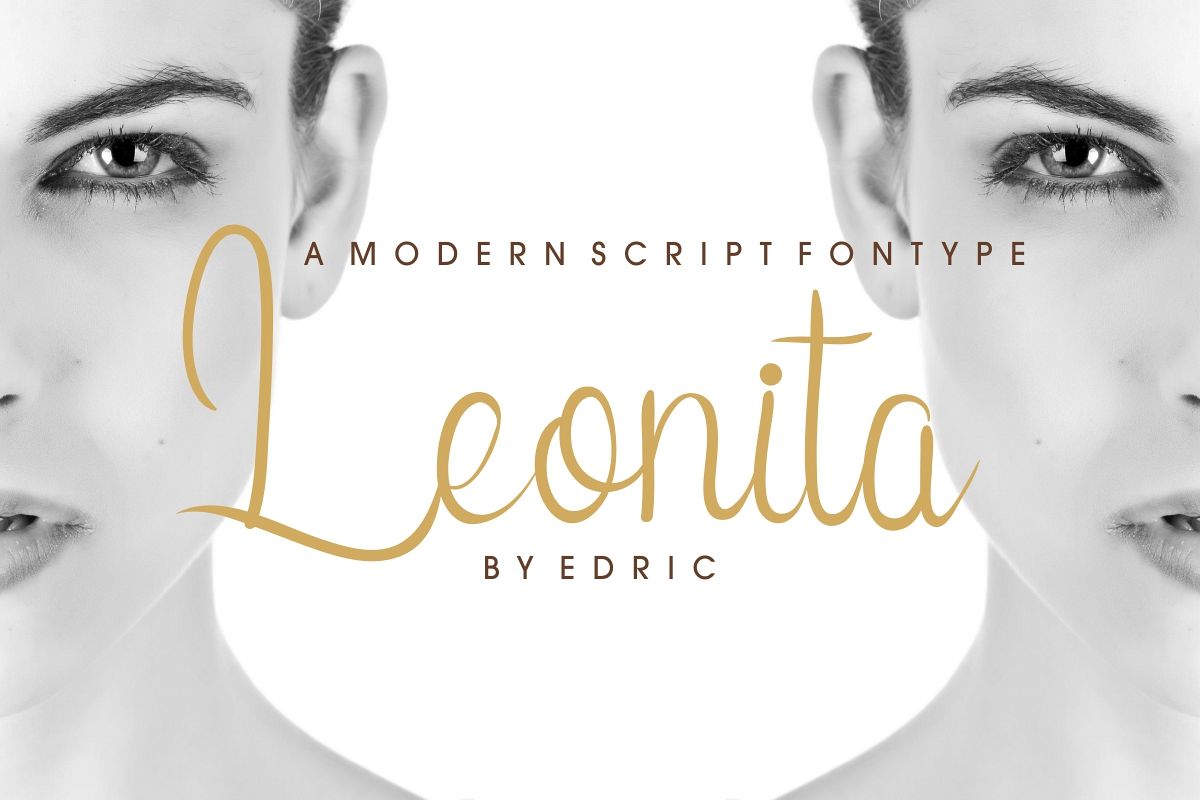
Leonita
Leonita  !A modern calligraphy Script Font!Leonita  is a new calligraphy script font with beautiful characters. It has a natural, elegant, and stylish style. It comes with two style choices : Regular and Italic. It also support multiple accentsPerfect for many industries and projects : Wedding, professional, person name, signature, modern, law firm, makeup artist, photography, travel, hotel, fashion, cafe, cake-food etcThis font will Work on PC & Mac with Simple installations. Accessible in the Adobe Illustrator, Adobe Photoshop, Adobe InDesign, even work on Microsoft Word. It’s also PUA Encoded Characters – Fully accessible without additional design software. Plus it support multi-languageWhat’s include on package: